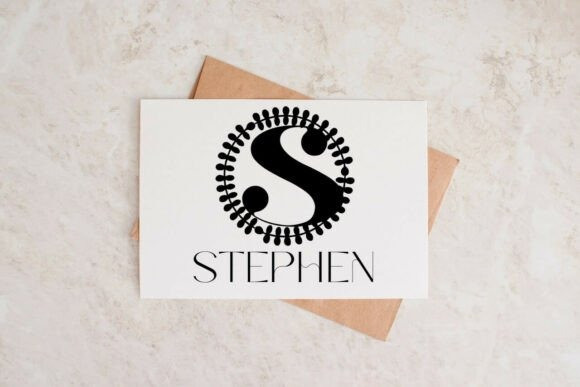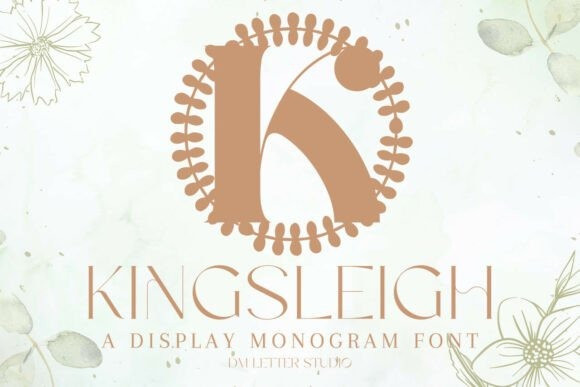
Kingsleigh Monogram Font
Kingsleigh Monogram Font turns simple initials into poised, heirloom-worthy emblems. Lines are smooth and confident, and open counters keep tiny tags readable. Use it for wedding suites, boutique logos, keepsake gifts, foil seals, and premium packaging. In addition, Kingsleigh pairs beautifully with refined serifs and quiet humanist sans fonts, so layouts stay elegant without extra effort.
Where this monogram font shines
Set single, double, or triple initials for logos, seals, menus, and place cards. Then frame them with laurel rings, oval borders, or fine rules to echo the stately geometry. Since the proportions favor symmetry and clarity, centered compositions come together in minutes. As a result, thumbnails pop on marketplaces and listings stay consistent from invitations to signage. Kingsleigh also scales smoothly from jewelry cards to entry displays, which makes it ideal for event décor and retail packaging.
Fast setup, premium results
Design tips for Kingsleigh Monogram
Keep initials large and let white space breathe. Pair the headline monogram with a soft serif for body text or a clean sans for labels. Add micro shadows, a thin inner stroke, or a delicate frame to create depth. Because the structure is airy and balanced, textured papers and metallic foils raise perceived value. However, keep copy short so the monogram remains the hero—especially on favors, tags, and wax seals.